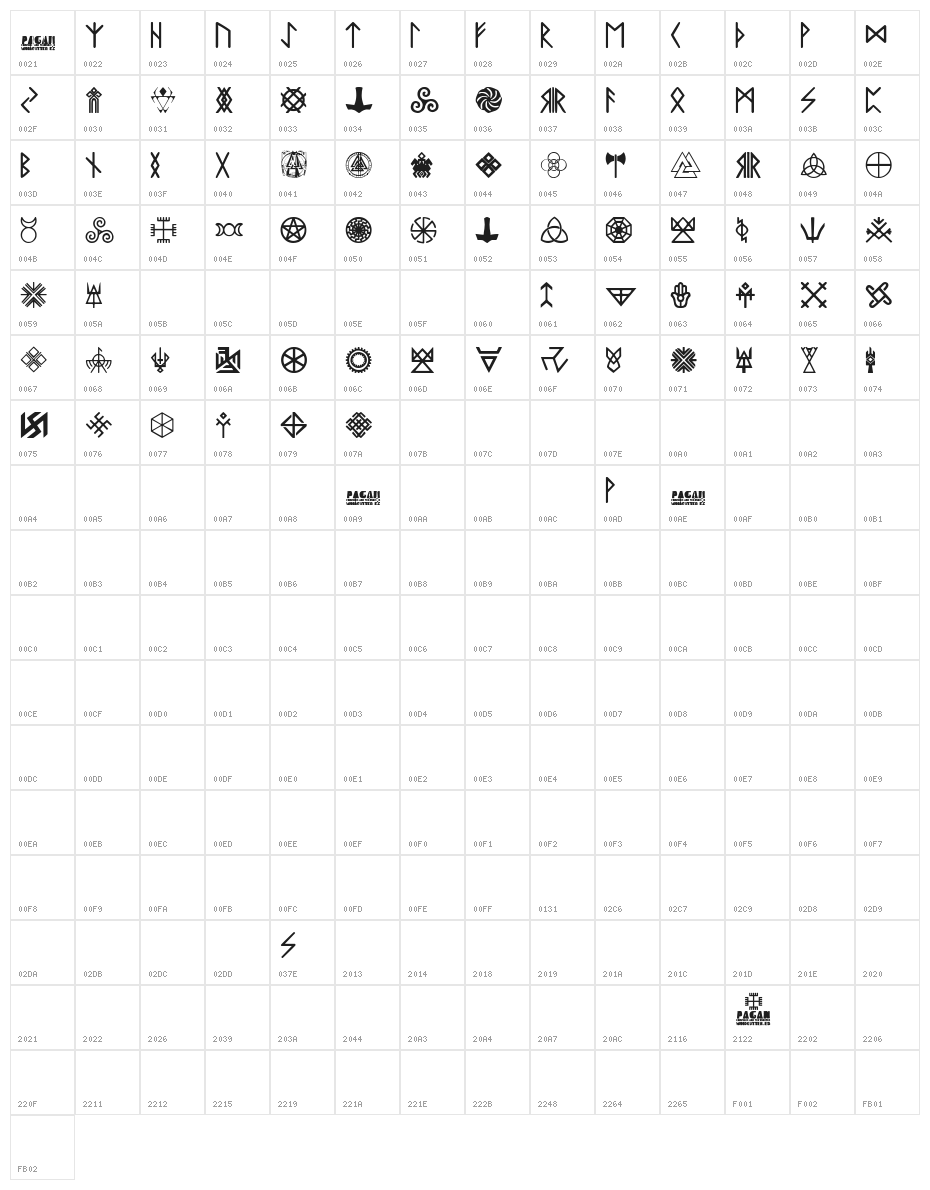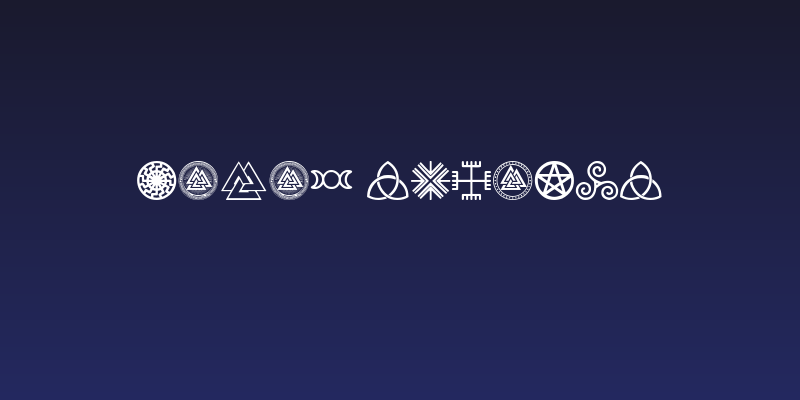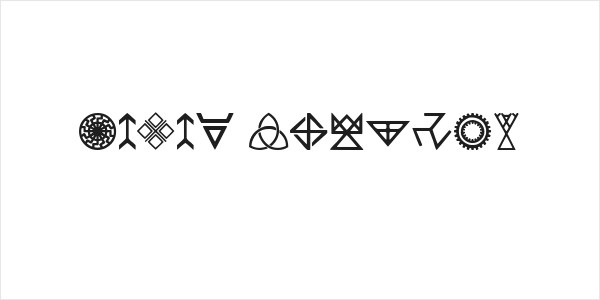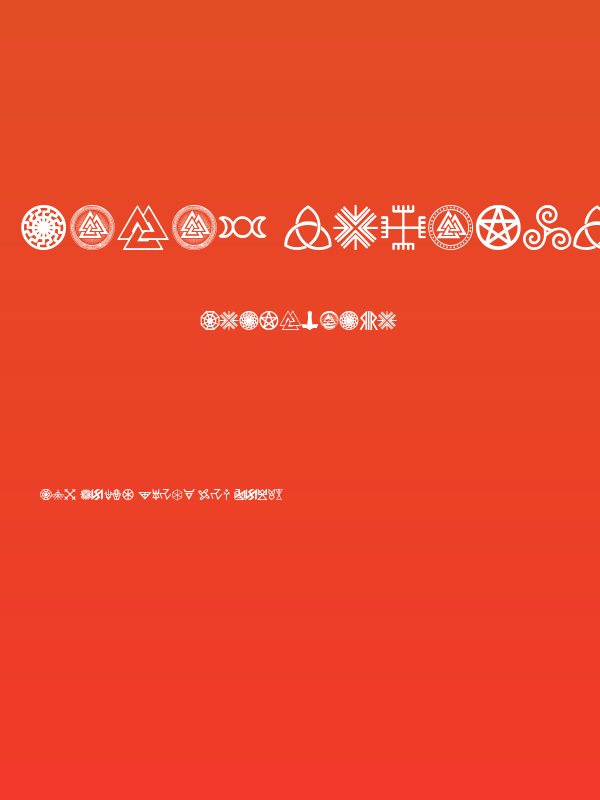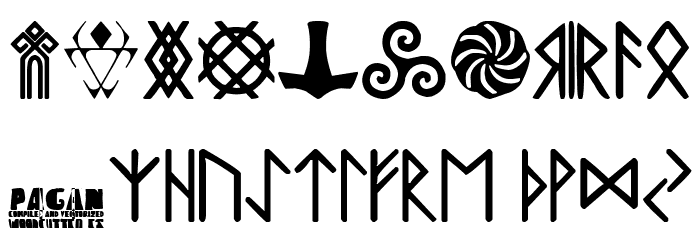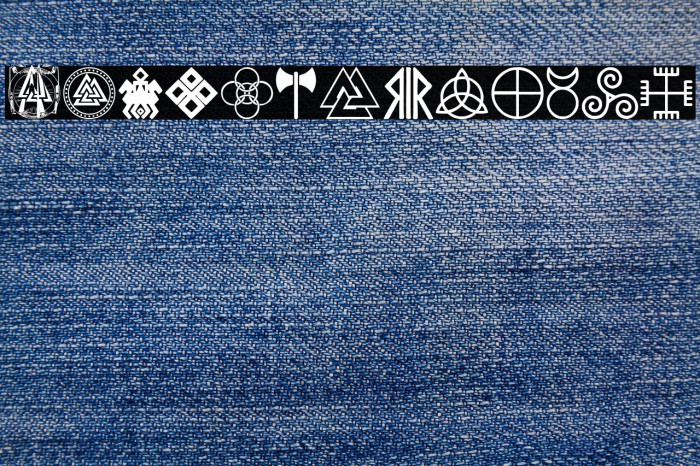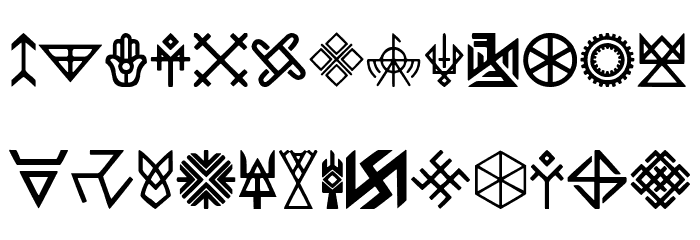
Pagan Symbols Font
Pagan Symbols Description
A decorative symbol font featuring a wide array of pagan, Norse, and esoteric symbols, including runes, geometric shapes, and mythological icons. The glyphs are bold, highly stylized, and vary in complexity, with some intricate line work and others more minimalistic.
| Overall Style | Decorative, Esoteric, Mythological |
| Use Case | Logos, Posters, Themed Graphics, Tattoos |
| Proposed Projects | Spiritual or occult-themed posters, book covers, tattoos, game graphics, ritual paraphernalia, educational materials on mythology. |